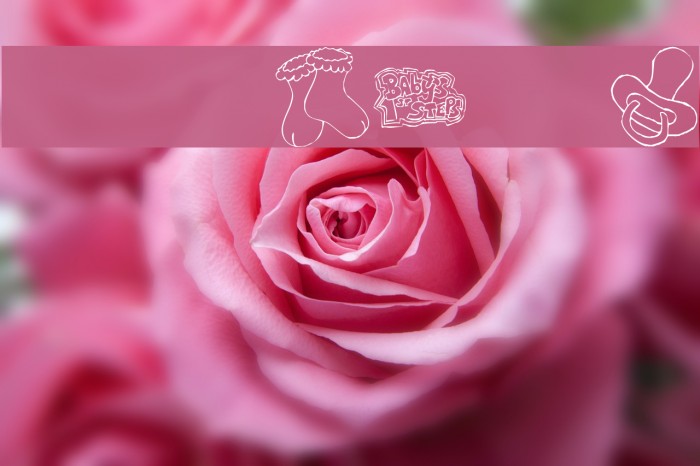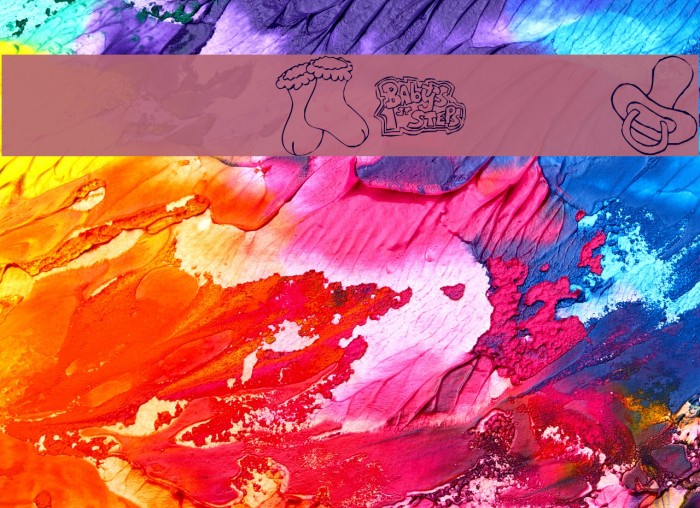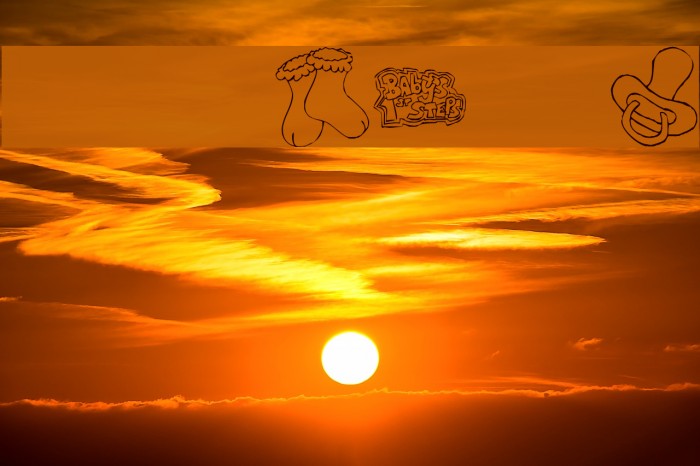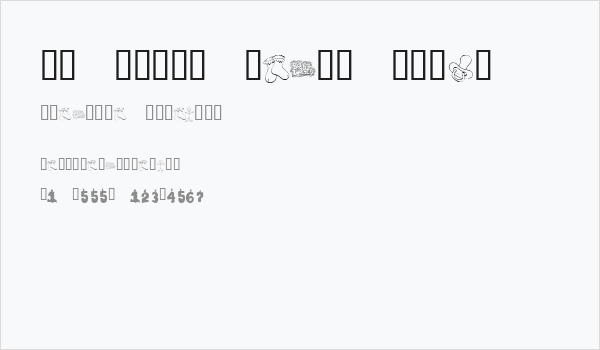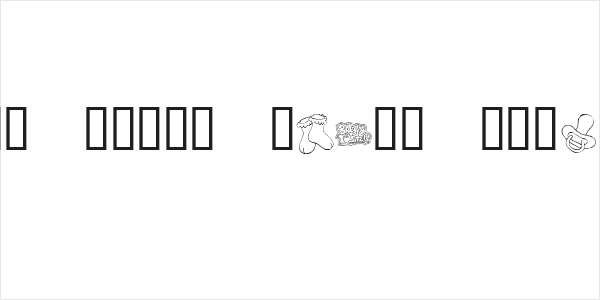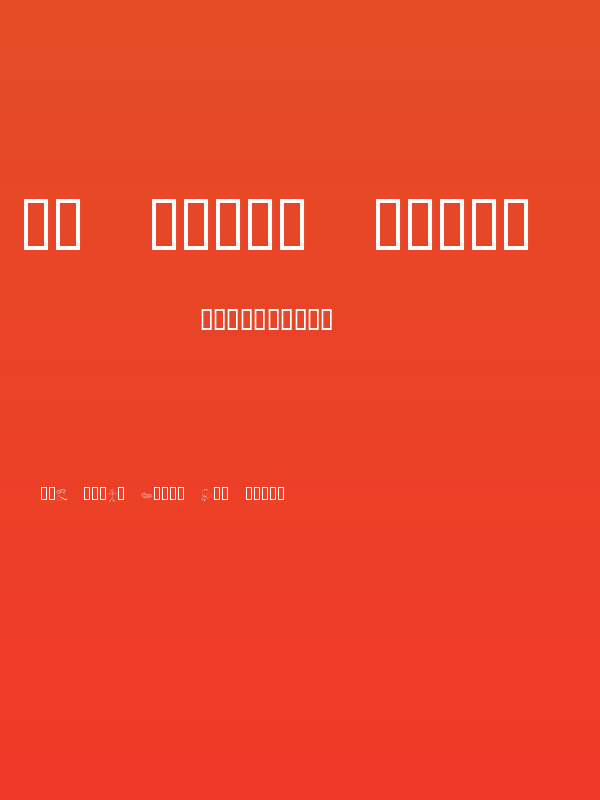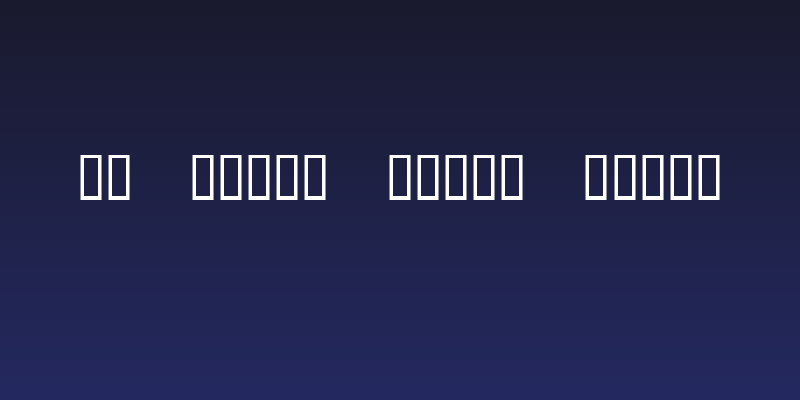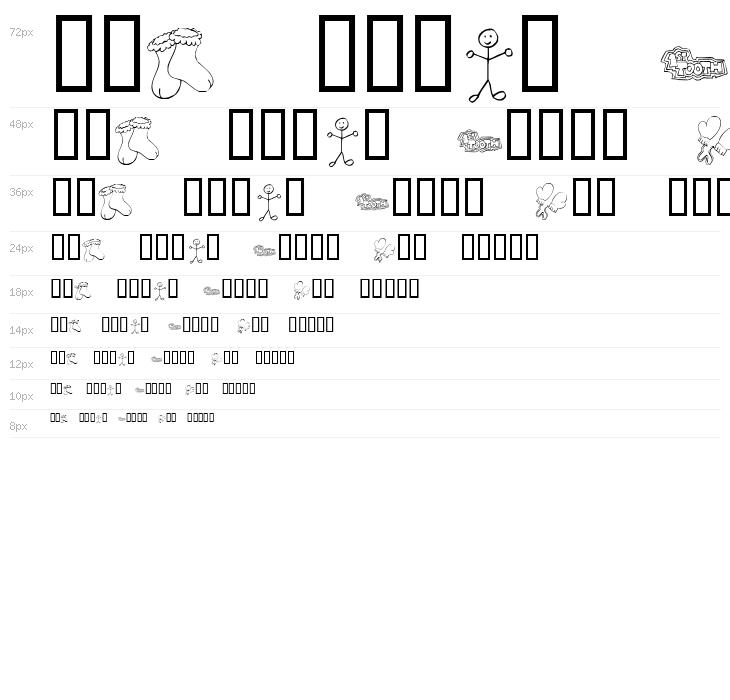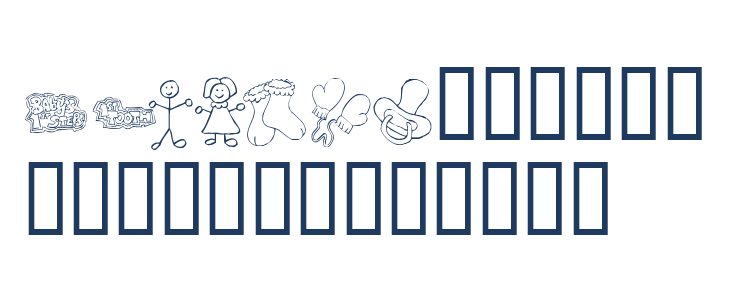
KR First Years Dings Font
KR First Years Dings Description
This is not a traditional font but rather a collection of playful and whimsical dingbats and decorative elements. The characters include childlike drawings and symbols such as stick figures, baby-related items, and numbers styled as candles. These elements are designed to add a fun and lighthearted touch to projects, making them ideal for children's materials or playful designs. The style is informal and cartoonish, with a focus on conveying a sense of joy and innocence.
| Overall Style | Playful, Childlike, Decorative |
| Use Case | Decorative elements, Children's materials, Invitations |
| Proposed Projects | Ideal for children's books, birthday invitations, nursery decorations, and playful graphic designs. |